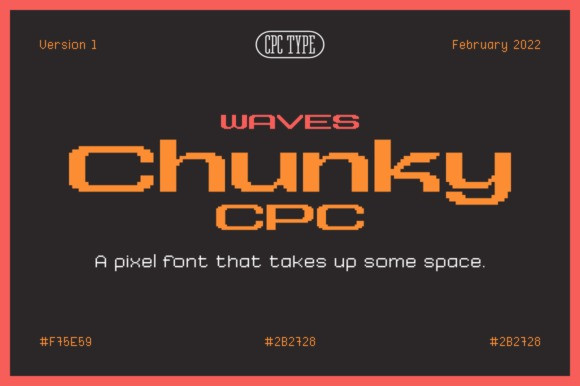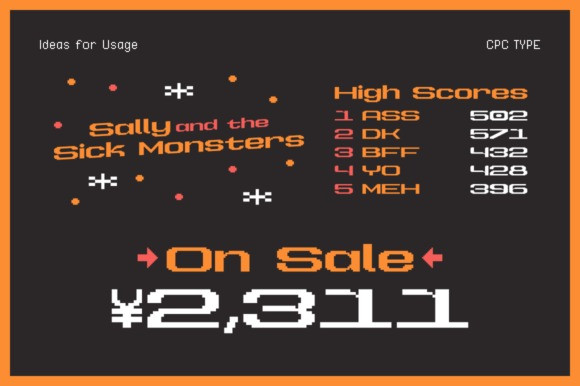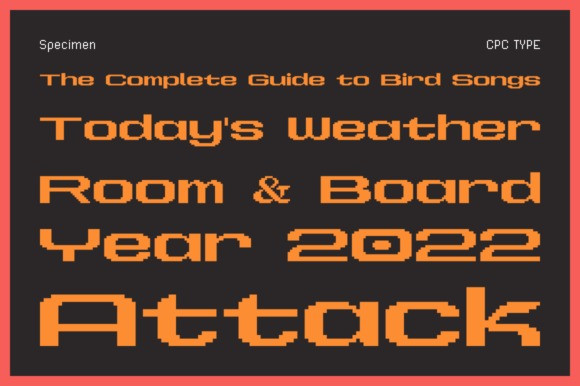
Waves Chunky CPC Font
Look no further if you need a retro lo-fi pixel display font for your next futuristic project! You can use Waves Chunky CPC for various projects, such as blog posts, logos, branding, ads, invitations, greeting cards, planners, photo albums, decorations, and much more. Add it to any of your designs, and enjoy the results!